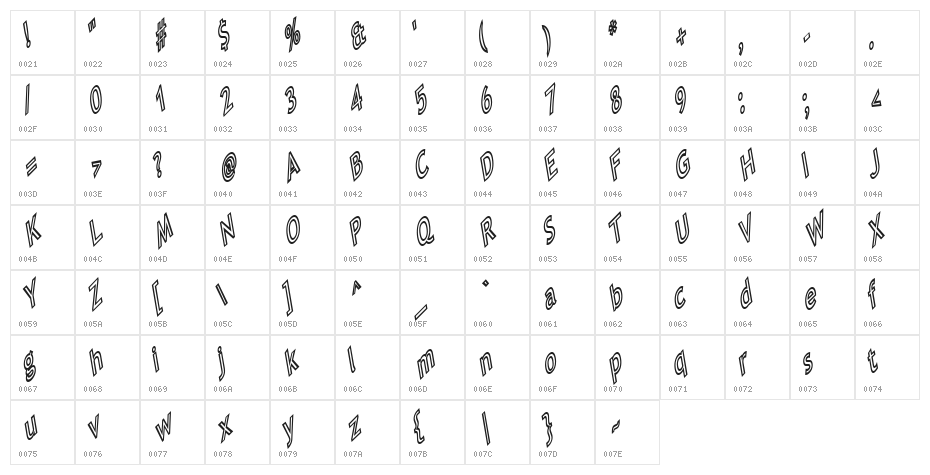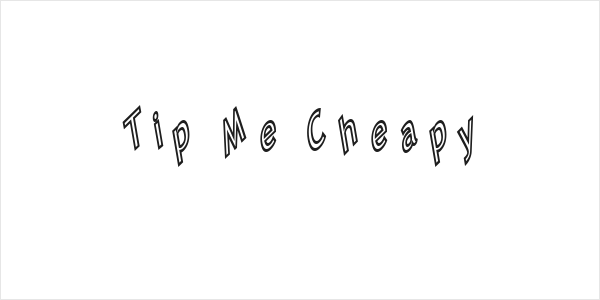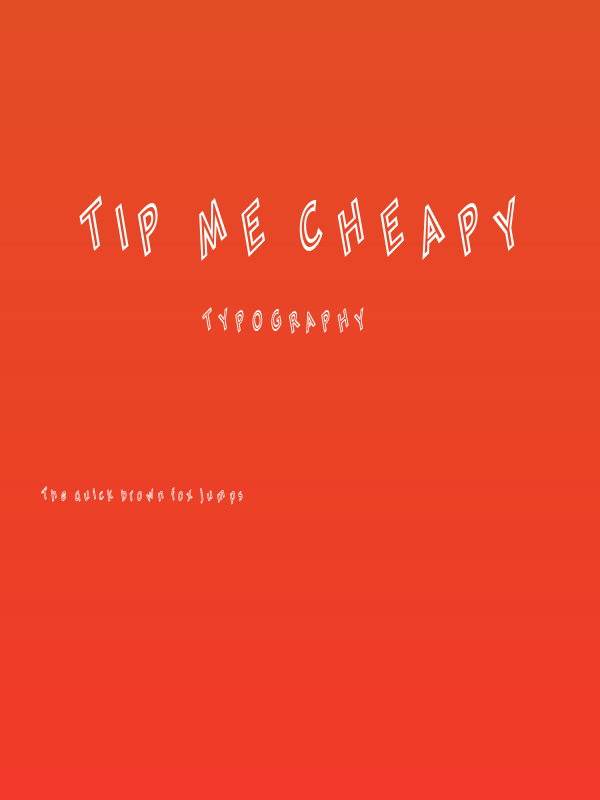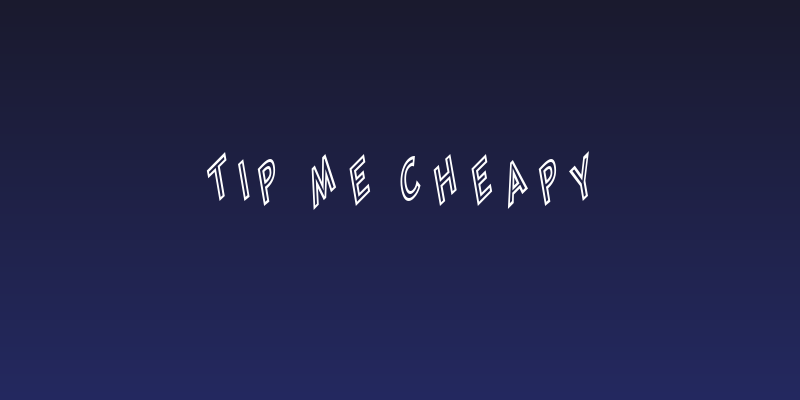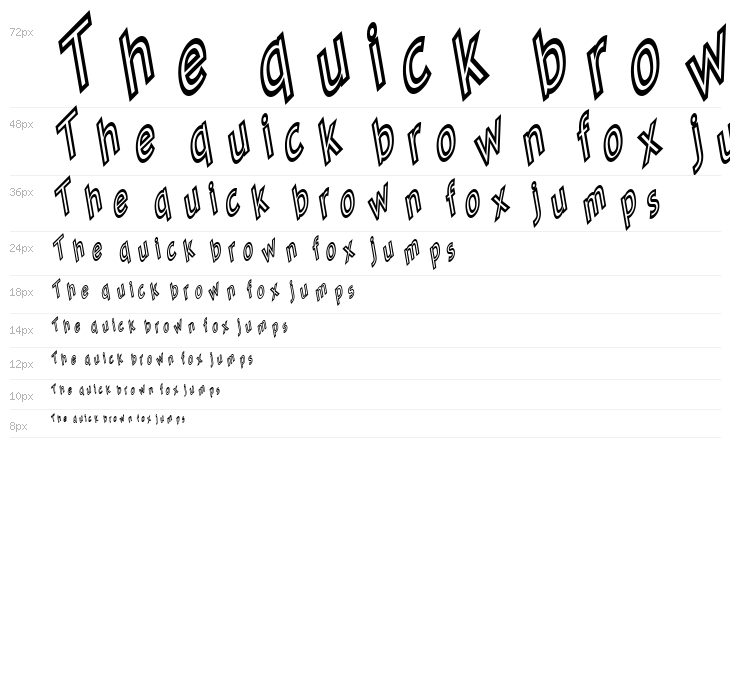
Tip Me Cheapy Font
Tip Me Cheapy Description
This font features a playful and dynamic design with a three-dimensional effect. Each character is outlined with a bold, black stroke, giving it a shadowed appearance that adds depth and interest. The letters are slightly tilted, enhancing the lively and informal feel. The uppercase and lowercase letters maintain a consistent style, with rounded edges and a uniform thickness that ensures readability. Numbers and special characters are designed to match the overall aesthetic, making this font versatile for various creative applications.
| Overall Style | Playful, Modern |
| Proposed Projects | Ideal for children's books, comic strips, playful branding, and eye-catching posters. |